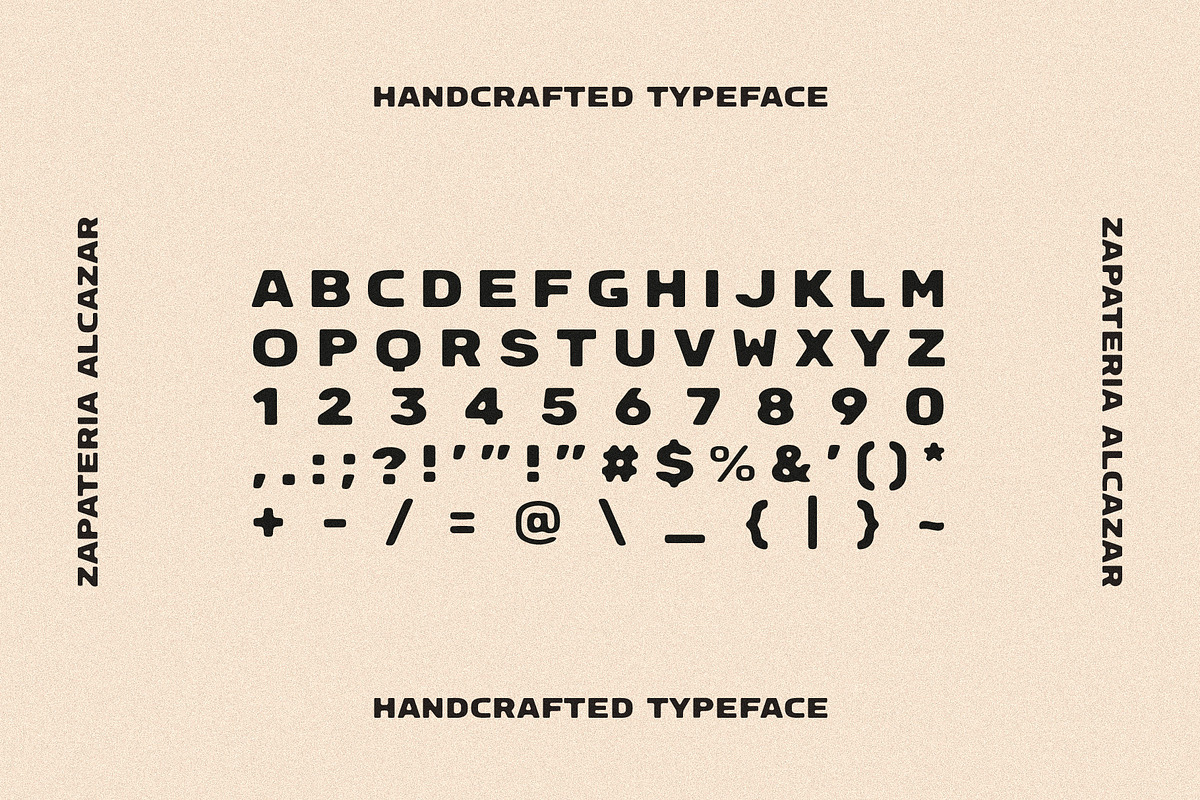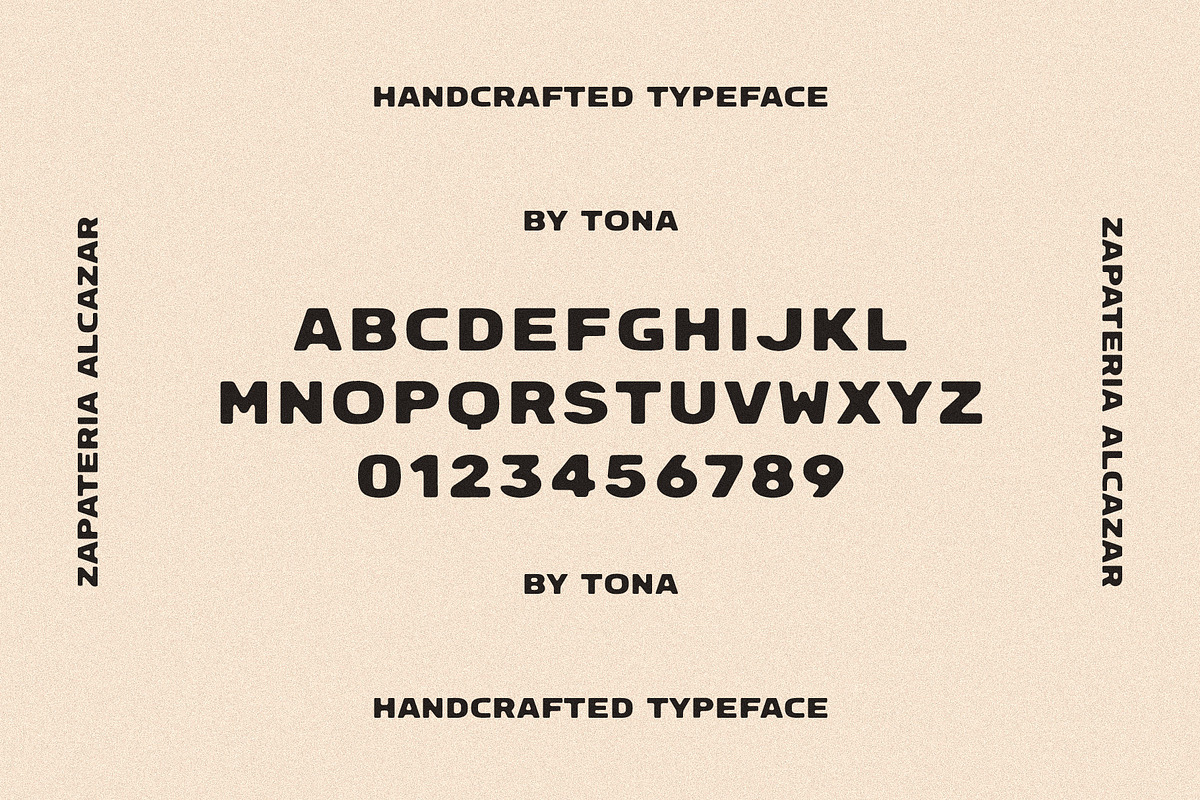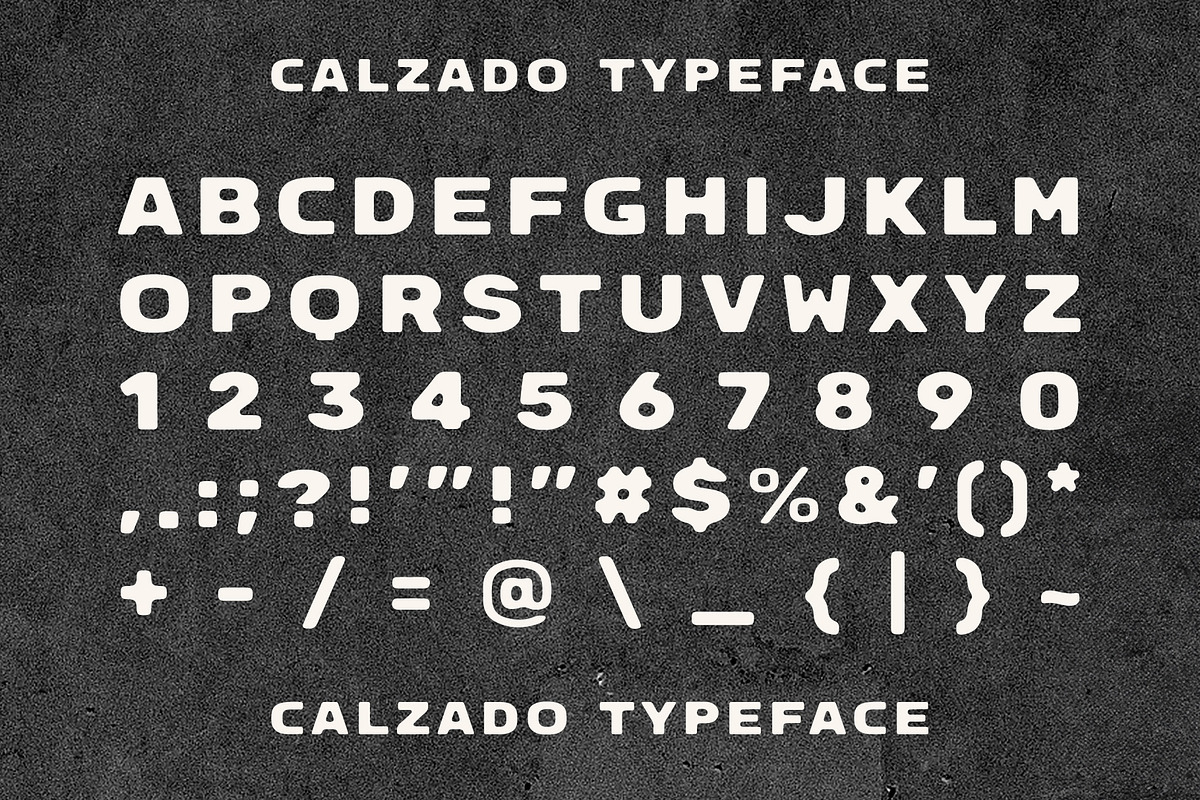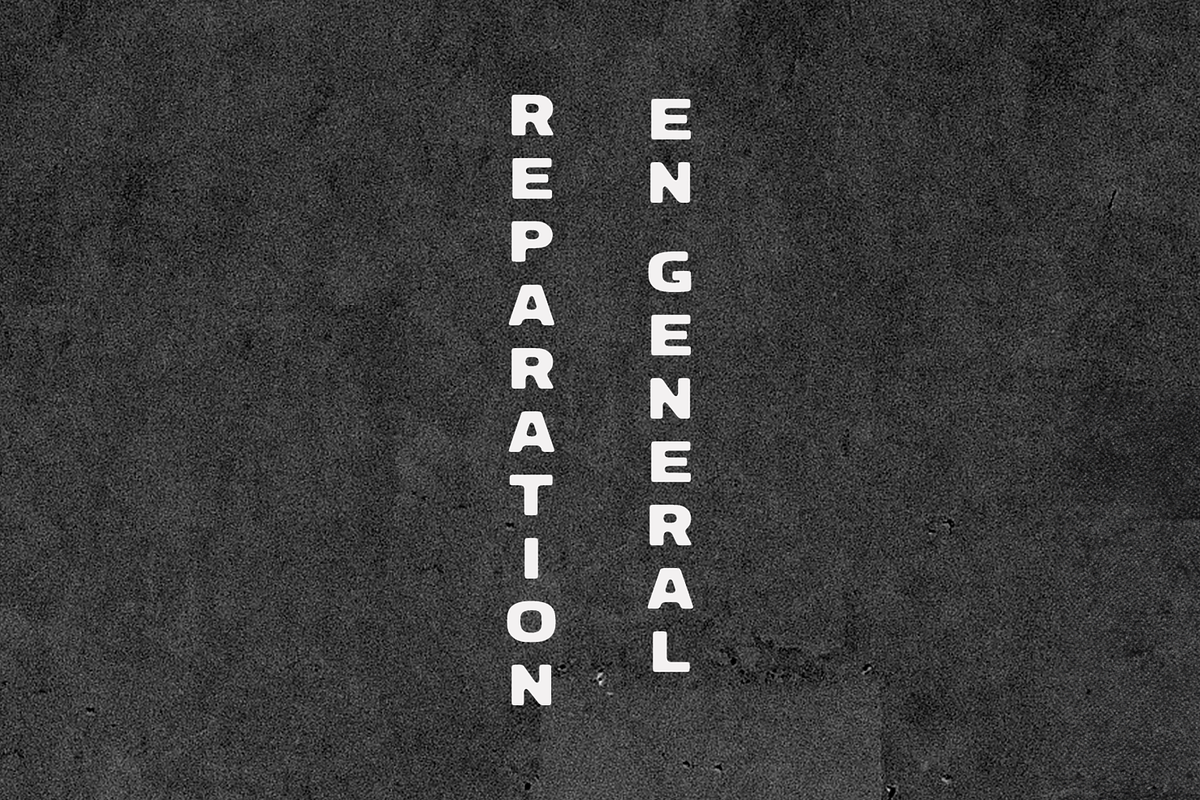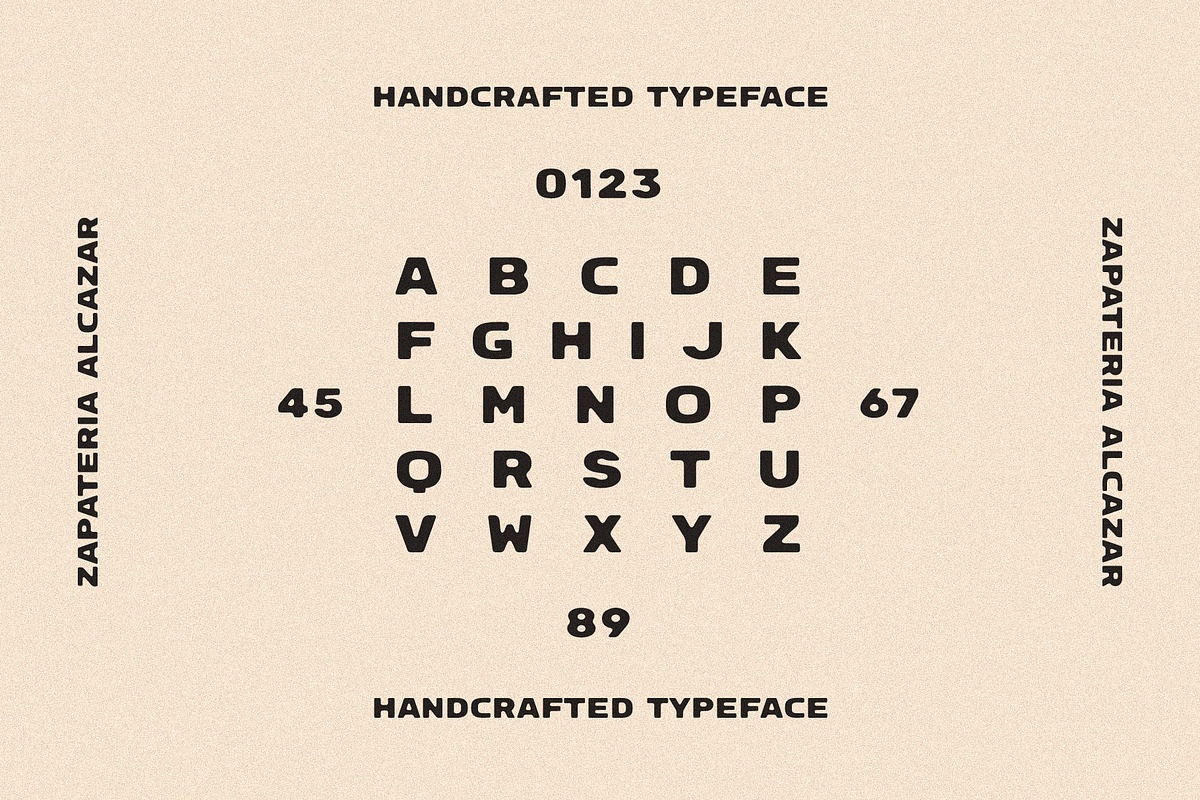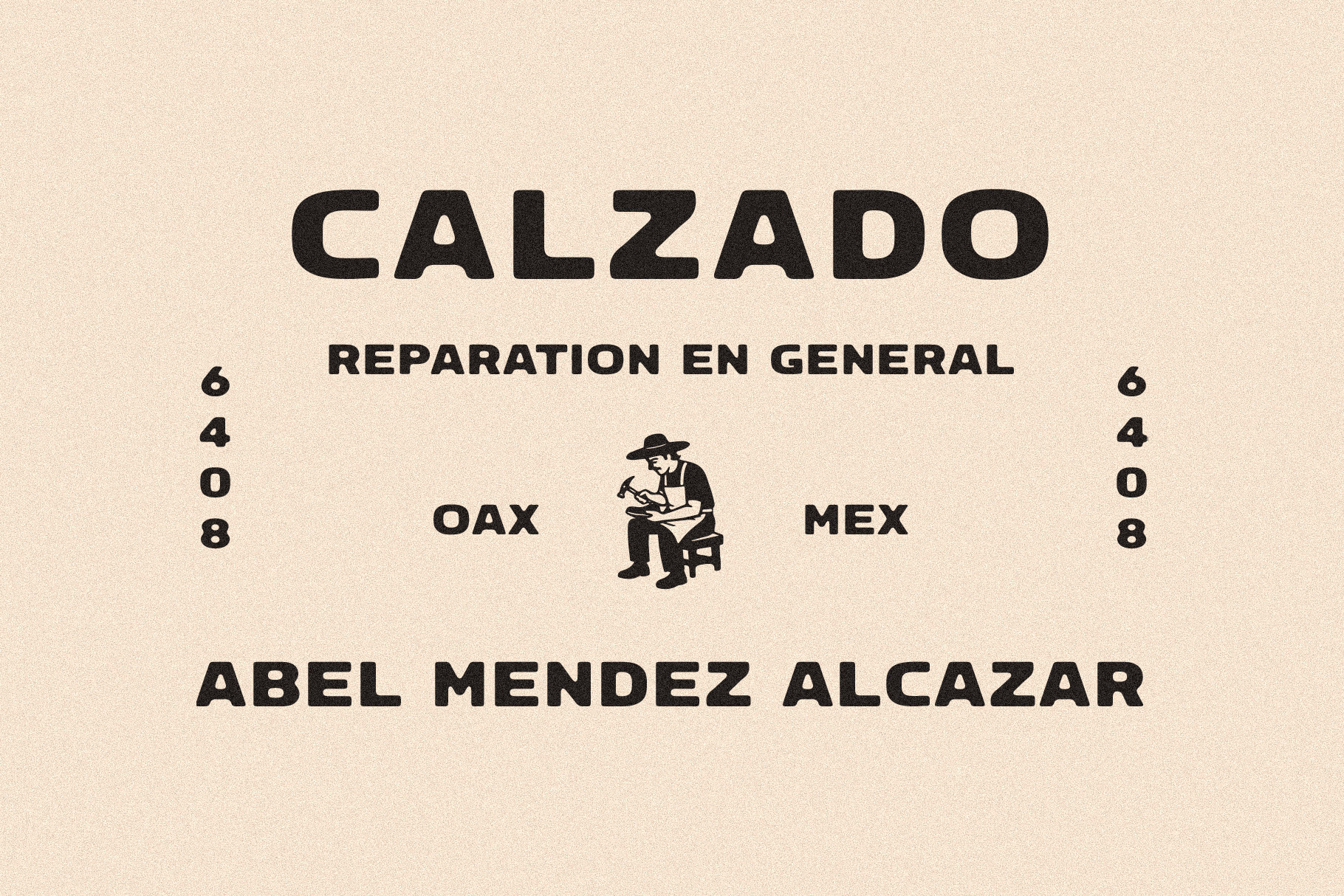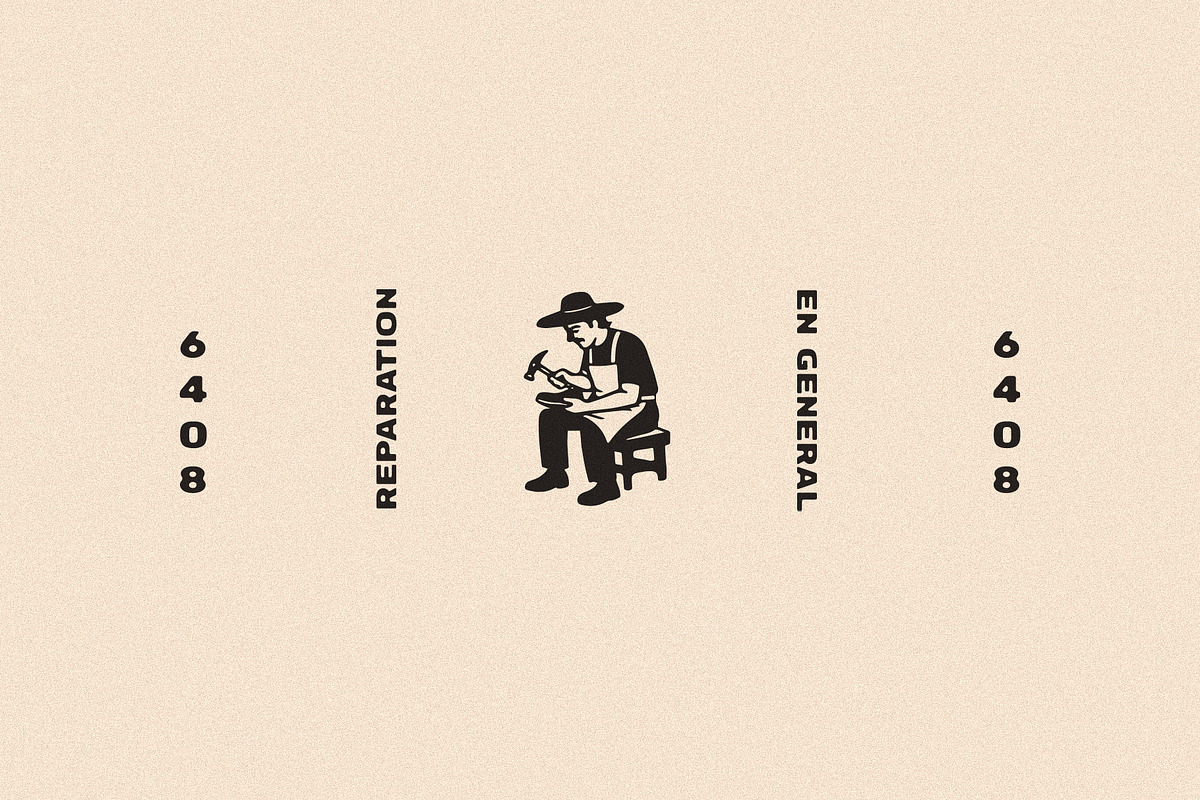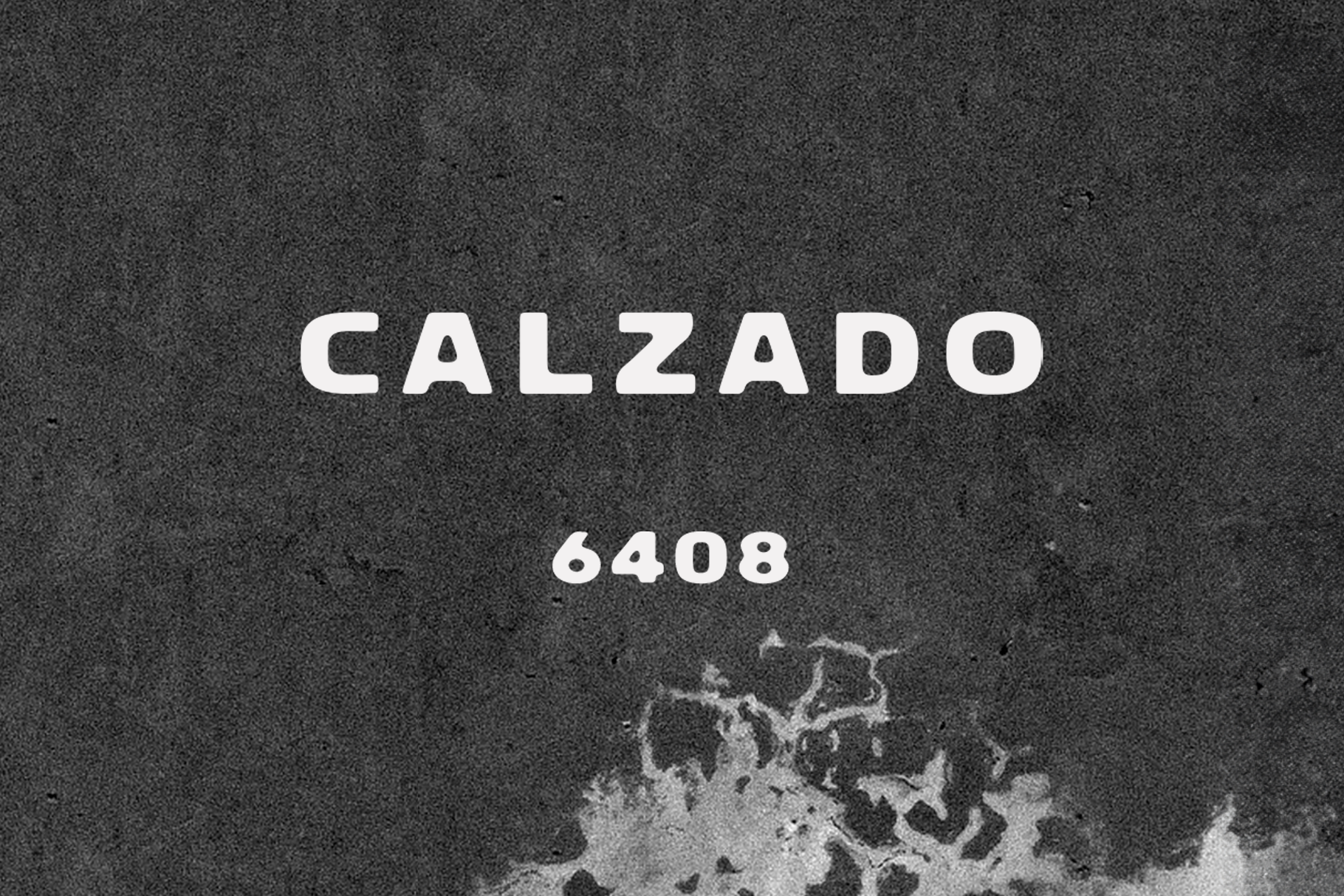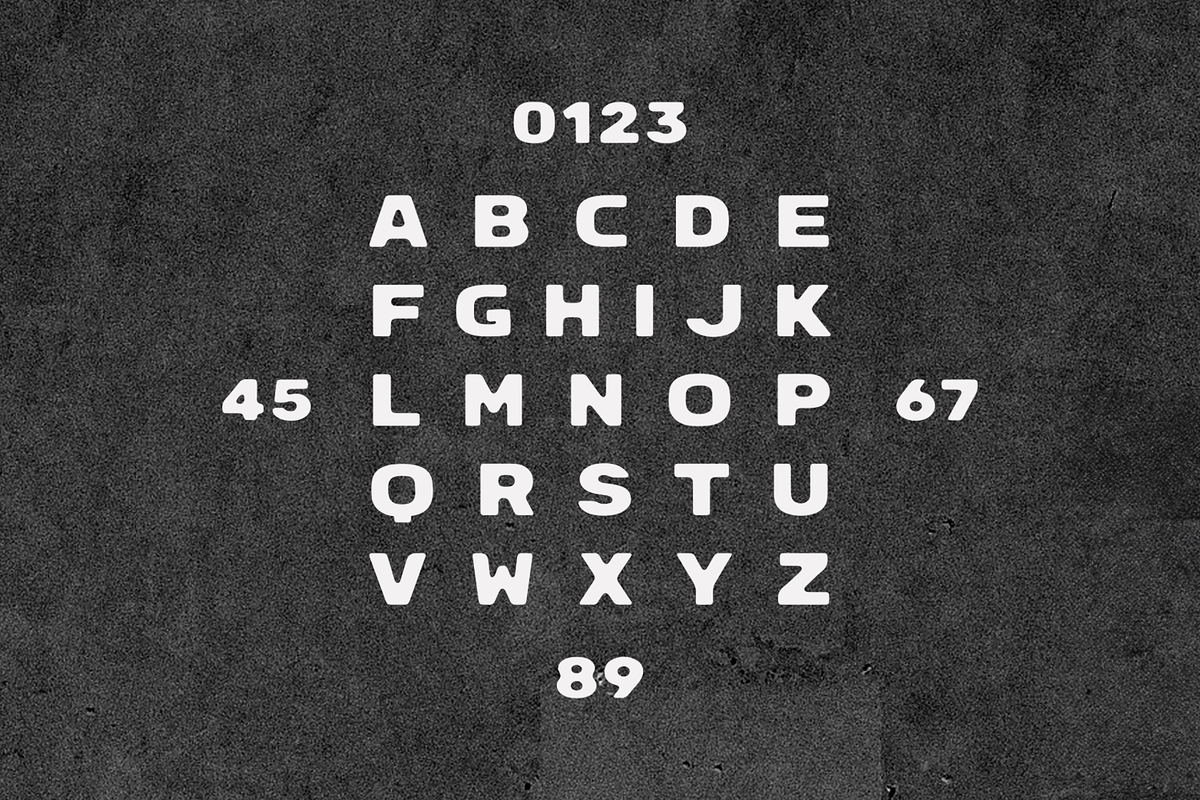
CALZADO Font
Calzado is inspired by a sign from a traditional shoemaker workshop in Mexico. These small, family run places often have simple signs on display, directly connected to the people and the work behind them.
This visual language became the starting point for the typeface. The letterforms were carefully redrawn and refined into a bold display font designed for contemporary use while keeping the spirit of the original workshop sign.
Calzado is a fully functional all caps font including numbers and punctuation. The typeface works perfectly for branding, packaging, posters, editorial design, logos and signage, adding a distinctive vintage and handcrafted feel to modern design projects.